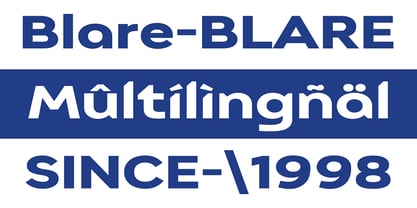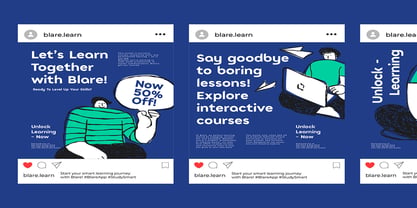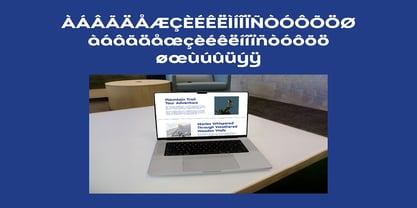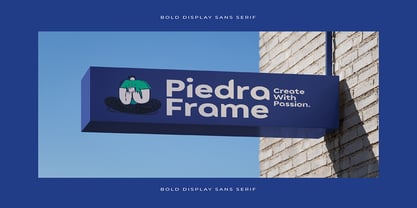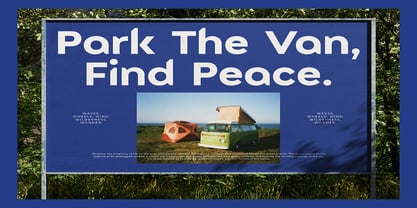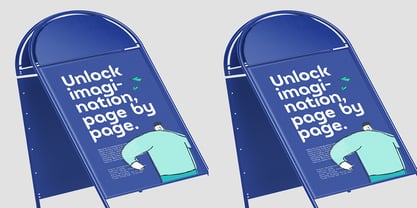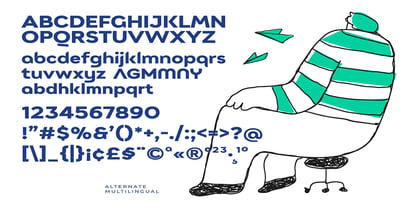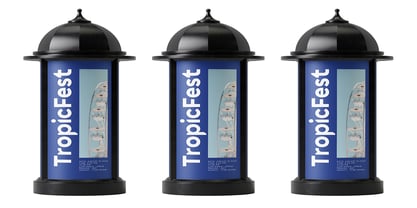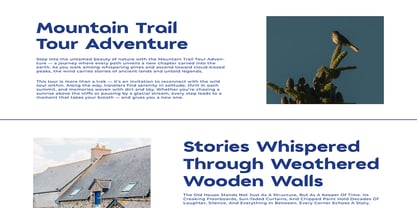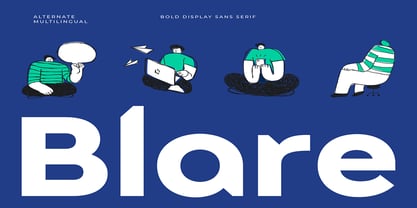
Blare
Turn Up the Volume on Your Designs with Blare
Blare is a fearless, ultra-bold display sans-serif font engineered for impact. Designed with extended proportions and deep, modern ink-trap details, Blare commands attention while maintaining a remarkably friendly, approachable edge. It doesn't just sit on a page—it speaks up.
Blare’s wide, geometric forms give it a grounded, architectural stability, while its sharp, unexpected inner cuts and dynamic stylistic alternates add an element of playful unpredictability. Whether you are designing an app interface for the next generation of learners, creating standout event posters, or building a bold brand identity from the ground up, Blare delivers clarity and character at maximum scale.
From massive billboards to punchy social media carousels, Blare is your go-to typeface when "subtle" just won't cut it.
Key Features
• Bold Display Presence: Extended, high-impact letterforms engineered specifically for headlines, logos, posters, and hero text.
• Distinct Geometric Cuts & Ink-Traps: Unique design details that keep characters crisp at large scales and add a contemporary, tech-adjacent edge.
• Creative Stylistic Alternates: Includes distinct character variations (like the stylized, sharp A, G, M, M, N, Y) to give your typography a customized, bespoke look.
• Broad Multilingual Support: Fully loaded with Western and Central European diacritics, making it ready for global branding projects.
Best Suited For:
• Branding & Visual Identity: Standout logos, packaging design, and bold corporate identities.
• Digital Products & Apps: EdTech platforms, creative lifestyle apps, and modern UI elements.
• Marketing & Advertising: High-conversion social media graphics, Instagram carousels, and landing page headlines.
• Print & Signage: Festival posters, event sandwich boards, book covers, and large-scale billboards.